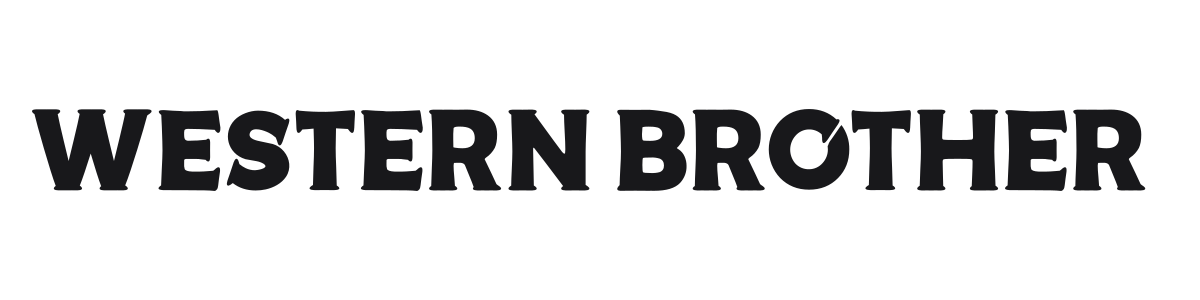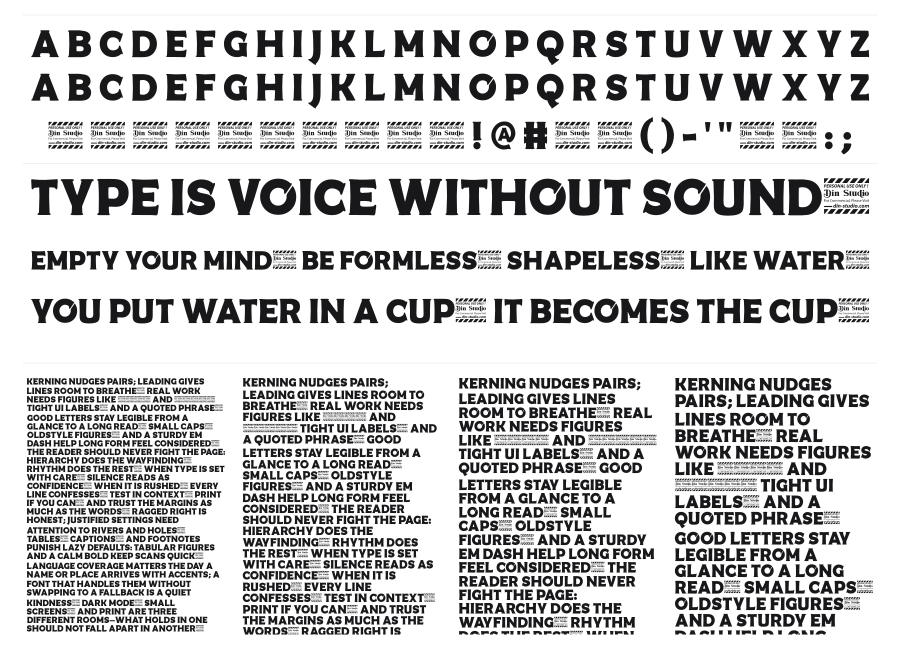
Western Brother
by Din Studio · Website
Western Brother is a bold vintage display face with the rugged character of old American wood type. A subtle worn texture and chunky proportions give it an authentic aged quality without tipping into illegibility. Strong at large sizes for posters, labels, and brand identities with a frontier or heritage feel.